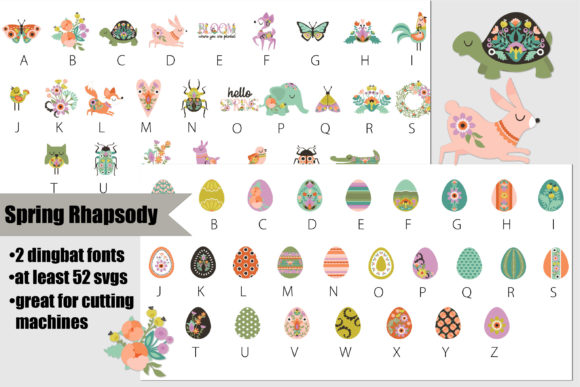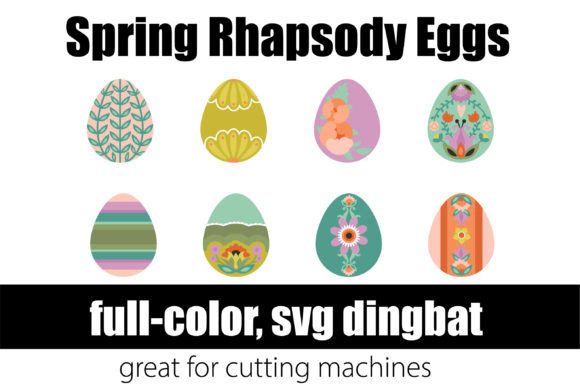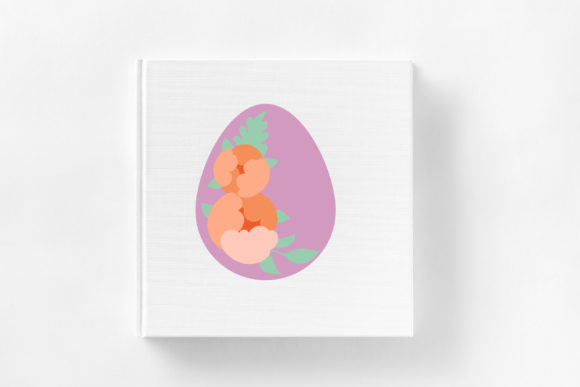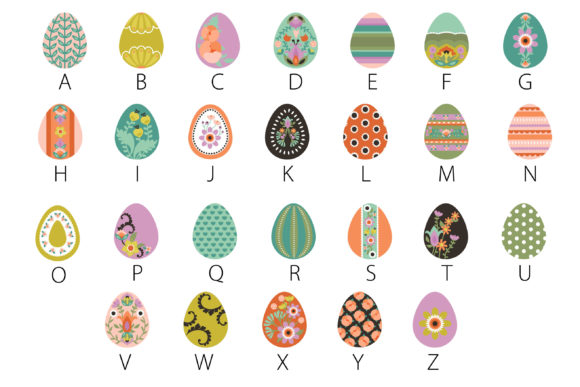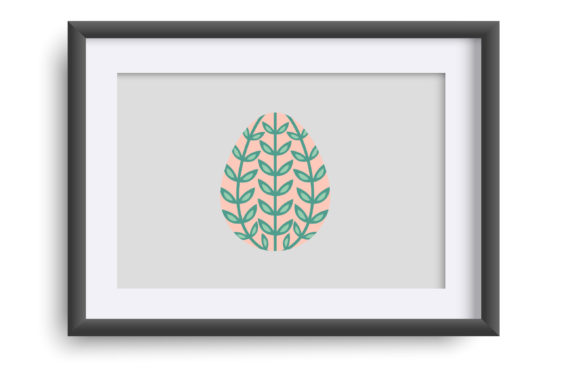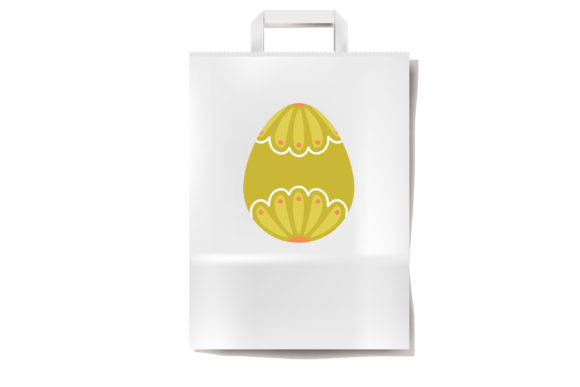
About Spring Rhapsody Font
This bundle offers a delightful collection of two vibrant dingbat fonts that feature decorative spring elements, insects, animals, and eggs, all rendered in full-color.
Once you’ve installed these fonts, you’ll gain access to a diverse range of decorative spring elements, insects, animals, and eggs, all presented in vibrant colors. These dingbat fonts provide a fantastic opportunity to explore and incorporate unique and eye-catching elements into your designs. Whether you’re creating invitations, greeting cards, posters, or any other creative project with a spring or nature theme, these fonts will surely add a delightful touch.
Enjoy the process of discovering and utilizing these charming dingbat fonts in your designs, and let your creativity soar with the vibrant and diverse collection of spring-inspired elements they offer.